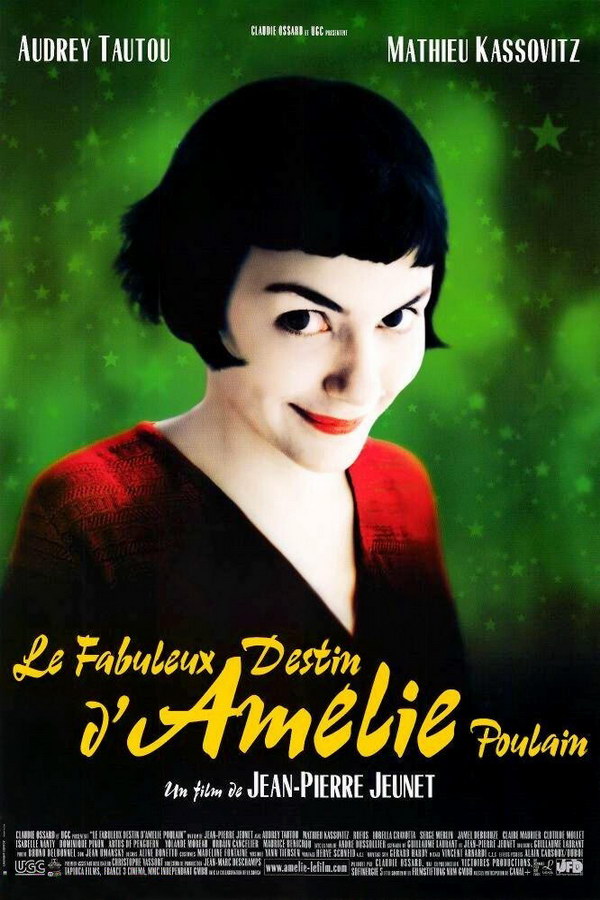
Amélie Font
Fonts in UseAmélie is a 2001 French romantic comedy film directed by Jean-Pierre Jeunet. It follows the whimsical journey of a young woman named Amélie who sets out to improve the lives of those around her while struggling with her own isolation and emotional detachment.
The font utilized in the movie title on the poster resembles Champion, a typeface created by Günter Gerhard Lange in 1957 for Berthold. This font is a commercial one and additional information regarding it can be found here.